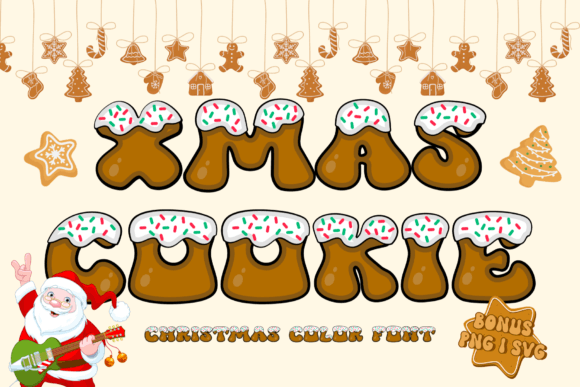
Introducing the Xmas Cookie Font, a vibrant and festive font family that will add a touch of magic to your creative projects. Created by the talented team at Brown Cupple Fonts, this Color font is specifically designed for those who seek a Font For App Design.
With its enchanting Christmas theme, Xmas Cookie Font captures the essence of the holiday season with every stroke. Its playful and authentic style brings joy and excitement to any design, making it the perfect choice for a wide range of purposes.
Whether you're working on blog posts, logos, branding, ads, invitations, greeting cards, planners, photo albums, decorations, or any other project that needs a dash of holiday spirit, Xmas Cookie Font is here to elevate your creations to new heights.
The vibrant and eye-catching nature of this font family will instantly grab attention and leave a lasting impression on your audience. Its captivating presence will ensure that your message is conveyed with utmost clarity and impact.
Imagine the delight of your readers or customers when they see the festive Xmas Cookie Font adorning your content. It will evoke emotions of warmth, joy, and nostalgia, creating an instant connection with your audience.
Furthermore, Xmas Cookie Font is incredibly versatile, allowing you to experiment and unleash your creativity. Its wide range of applications guarantees that it will seamlessly fit into any design concept, enhancing its visual appeal and making it truly unique.
Adding Xmas Cookie Font to your collection is a surefire way to infuse your projects with a sense of wonder and excitement. Its rich colors and intricate details will make your designs come alive, leaving a lasting impression on anyone who lays eyes on them.
So, whether you're a designer, blogger, business owner, or simply someone who loves to spread holiday cheer, Xmas Cookie Font is the perfect addition to your creative arsenal. Let it be the secret ingredient that sets your work apart and captivates your audience.